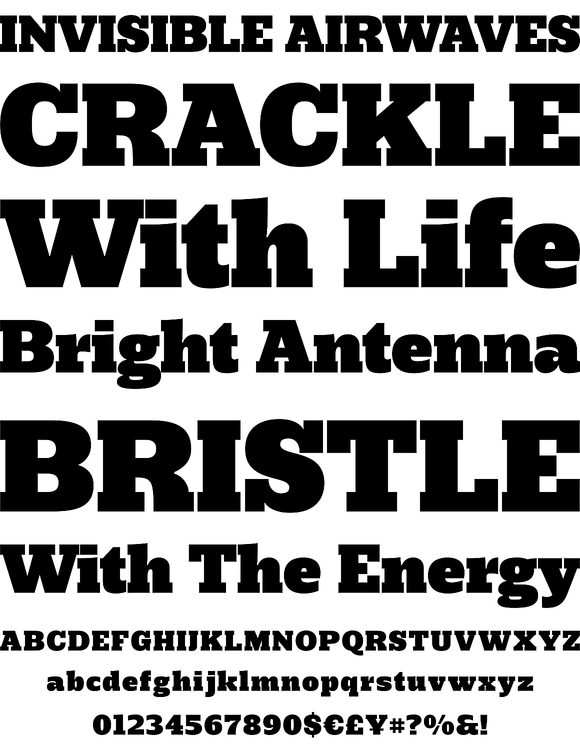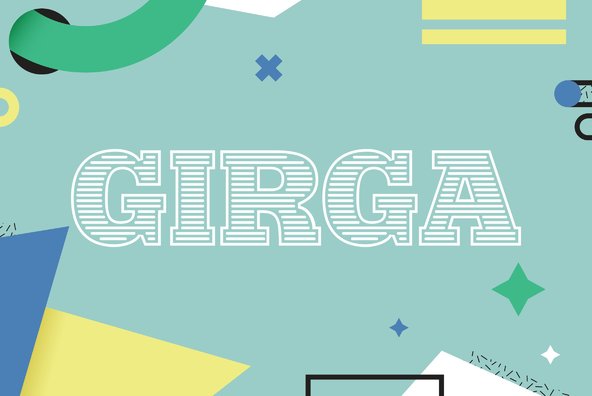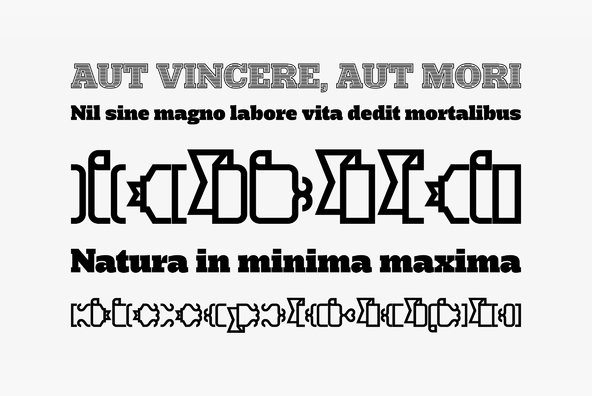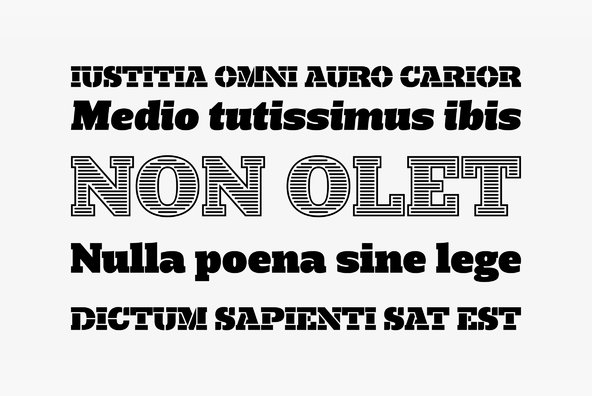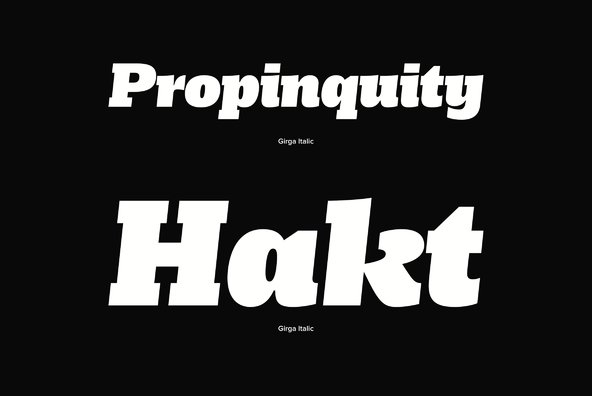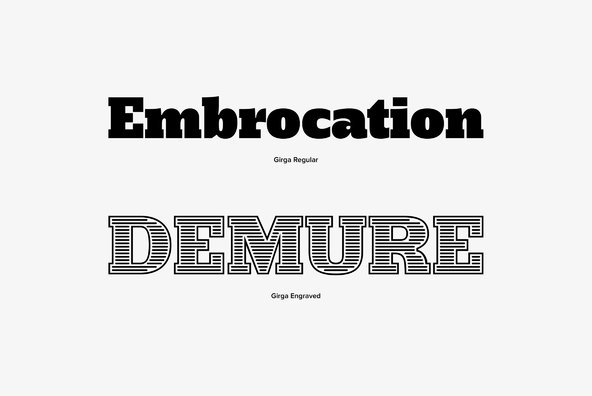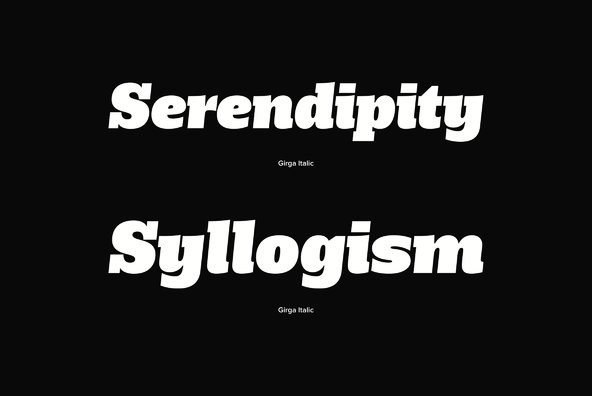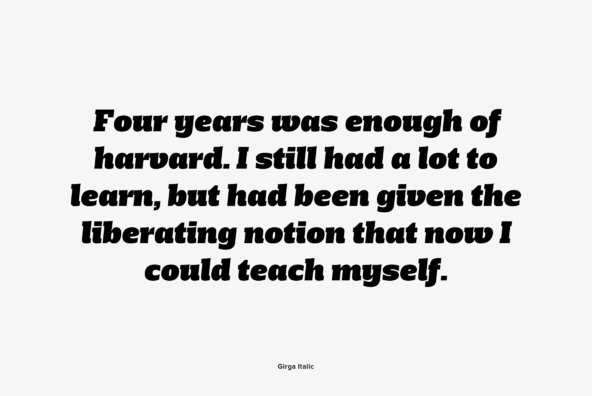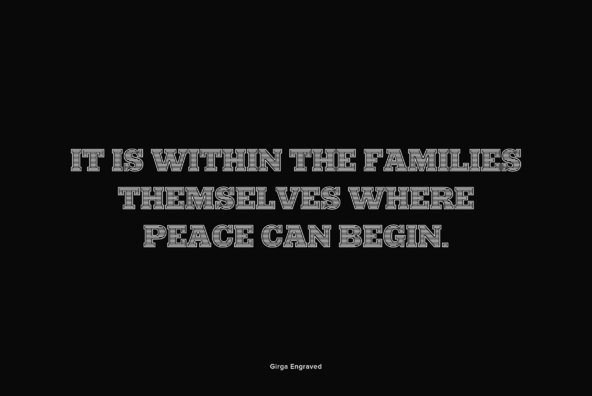
Triumphant, vigorous and strong. These were the keywords for the design of Girga, named after an Egyptian city in the Sohag Governorate. The power and strength of the Egyptian letterforms were balance with a few sans serif forms so the darkness of the text and the fatness of the overall glyphs could be kept. We never intended to design a revival of the nineteen century egyptian typefaces, but we included a series of features that can be found in many wood letters from that era. With five styles divided in Regular, Italic, Stencil, Engraved and Banner, Girga is full features that allow many design possibilities.